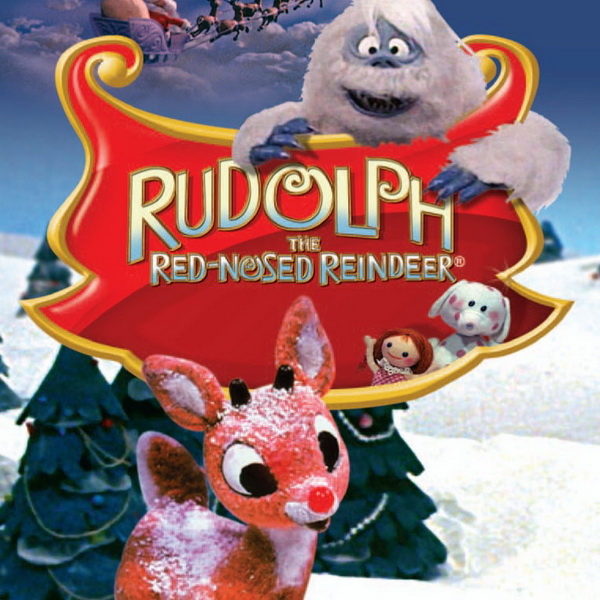
Rudolph Font
ActionRudolph the Red-Nosed Reindeer is a video game based on the classic holiday story of Rudolph the Red-Nosed Reindeer. The game was released in 2010 on Wii and Nintendo DS.
The font used for the game's title on the box art, Island of Misfit Toys, was created by Steve Ferrera. The alternate and regular font styles are both available. The former will create the staggering letters as seen on the box art, but the latter will create regular letters.